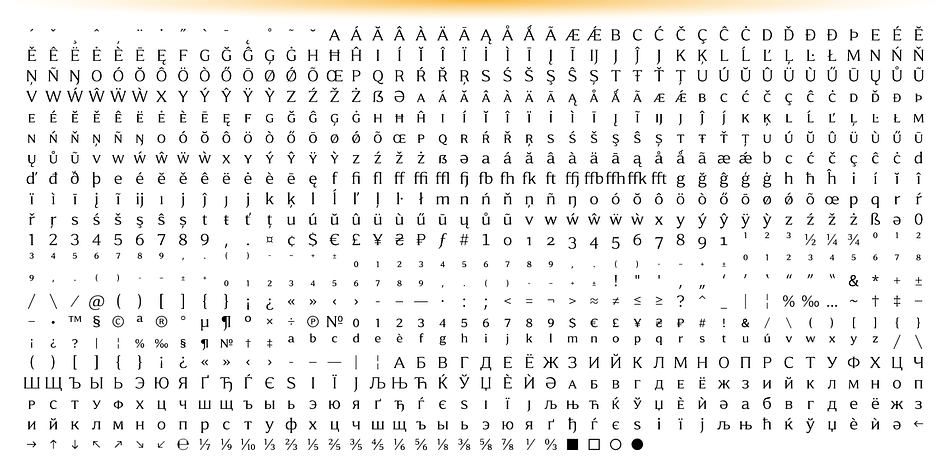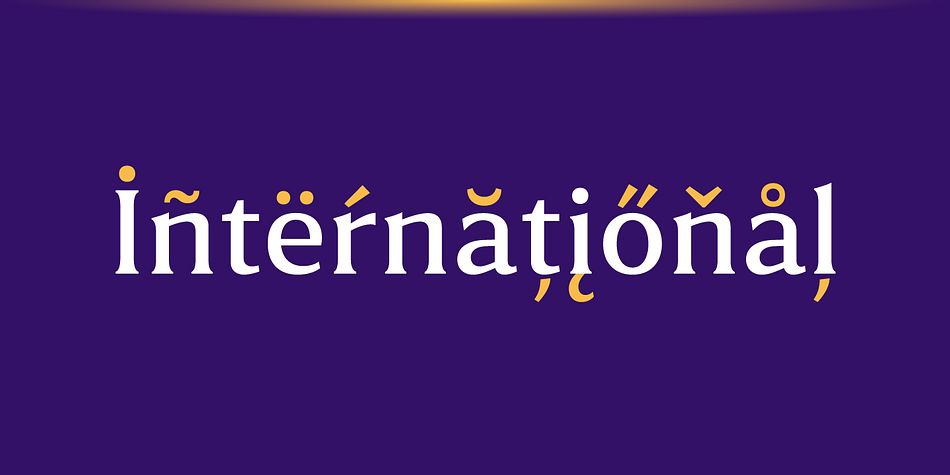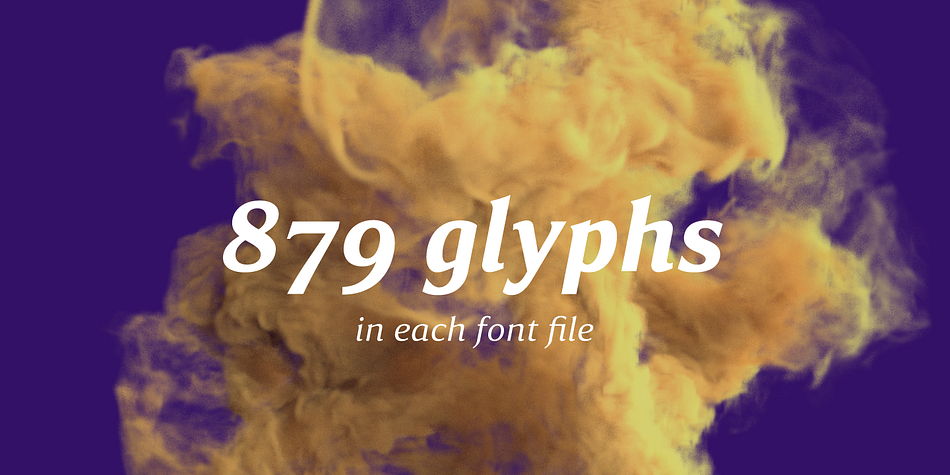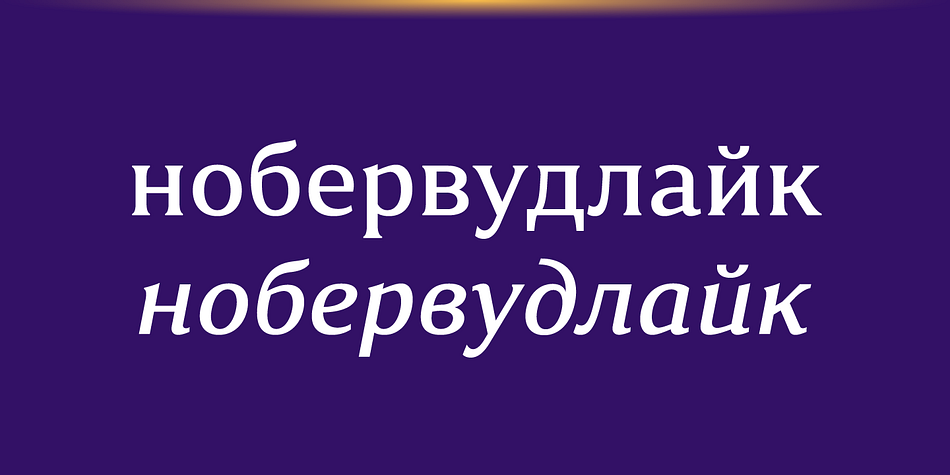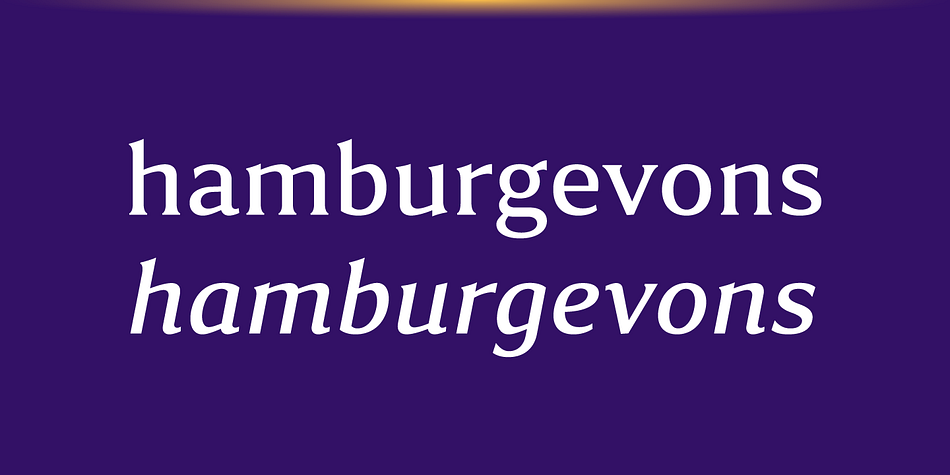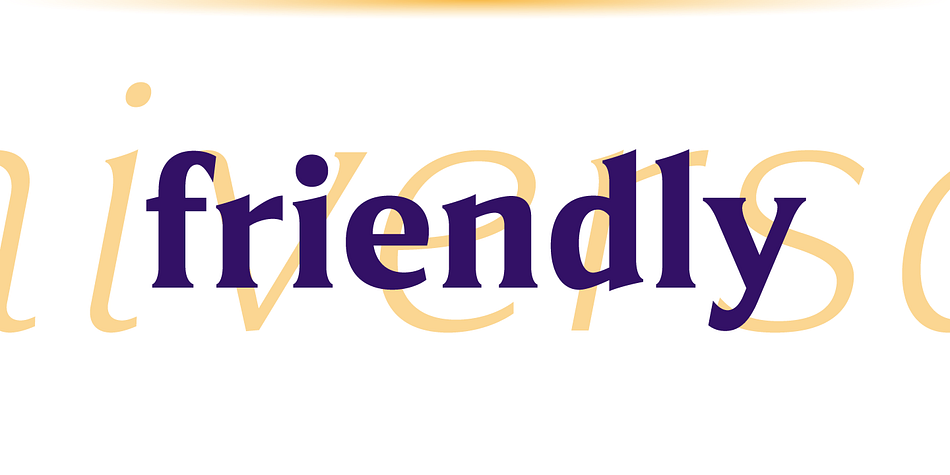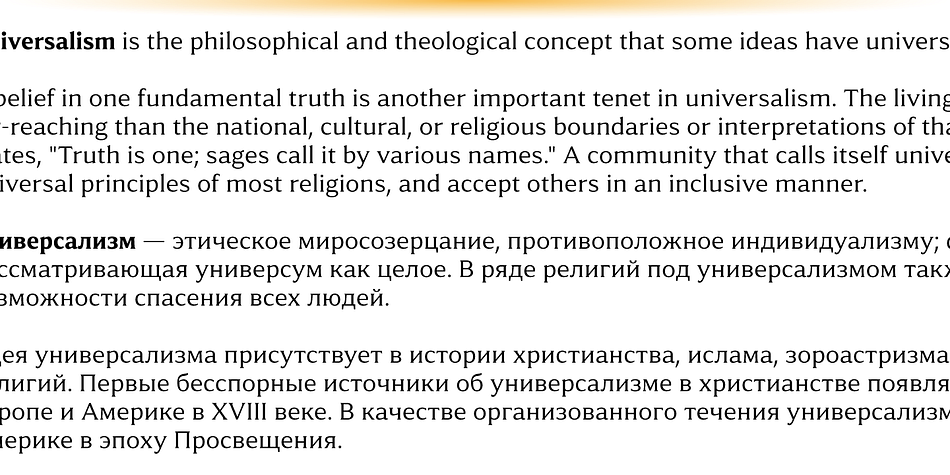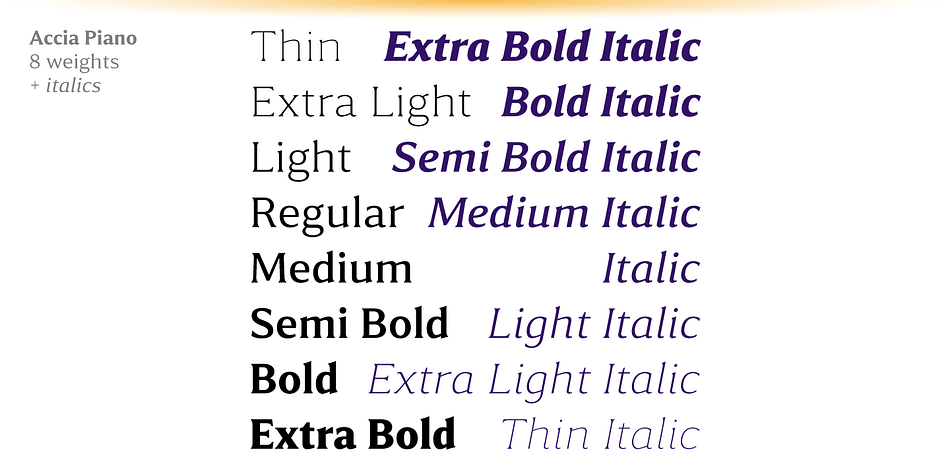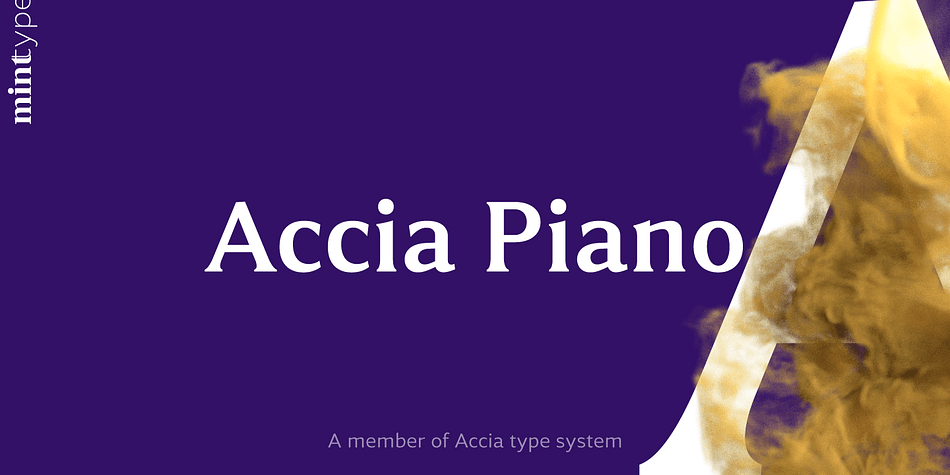
Accia Piano
Designed by Andriy Konstantynov, Accia Piano is a serif font family. This typeface has sixteen styles and was published by Mint Type.
Accia Piano is a quiet, friendly serif typeface. Its relatively short serifs, low contrast and large x-height will make a perfect appearance in newspapers as well as branding projects.
The font family contains 8 weights from Thin to Extra Bold, with matching true italics. It supports extensive language support including Cyrillic, as well as numerous OpenType features such as small caps, ligatures, several sets of figures, case-sensitive punctuation, ordinals.
Accia Piano is a member of Accia Type System. It encompasses five typefaces ranging from sans-serif to expressive serif, giving you the possibility to create sophisticated cohesive designs. Accia Type system consists of Accia Sans, Accia Flare, Accia Piano, Accia Moderato, and Accia Forte.